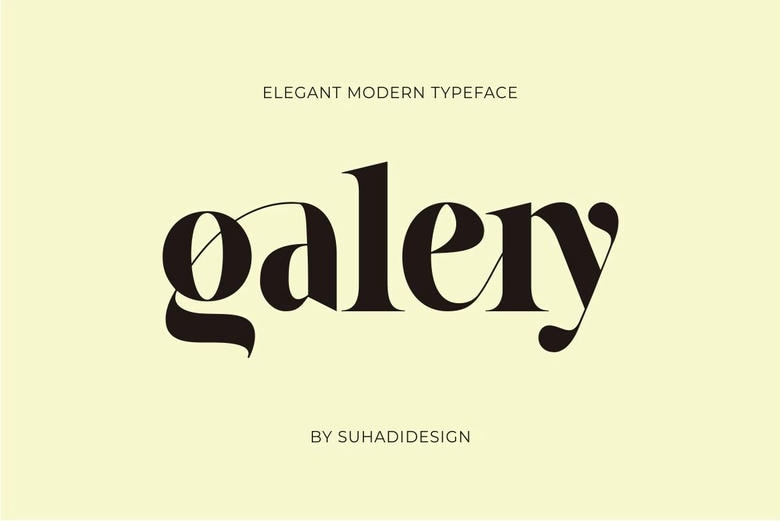
Galery Font
Galery Font is our next typeface and it is classified under the serif font type family. That is why an elegant model with a stylish fastener has become very popular among customers. We maintain this font to look beautiful, classy and stylish.
Our Galery Font is suitable for magazines, design, books, publications, branding, brand names, business cards, social media and classy design, newspapers, and beauty, etc. If you are still in doubt on the quality of your designs Font Galery is here to enhance your designs.
Galery Serif Font